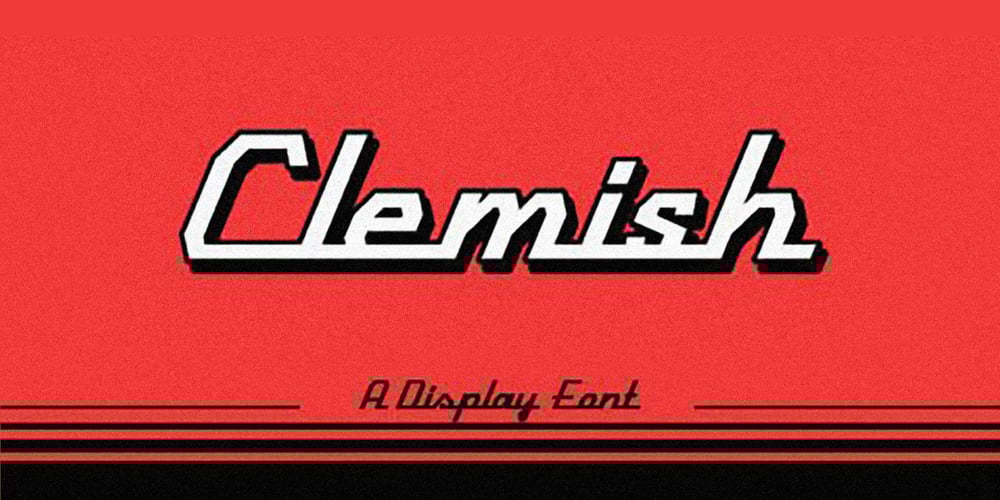
Clemish Script Font Family was designed by Muhammad Jauhar Azmi and published by Brainware Graphic. Clemish Script contains 1 styles and family package options. Clemish is a classy retro & futuristic display script font, a retro technically font, best for technological brand, and it can be used for logotype and can perfectly done with this typeface and so other design project with old fashioned nuance